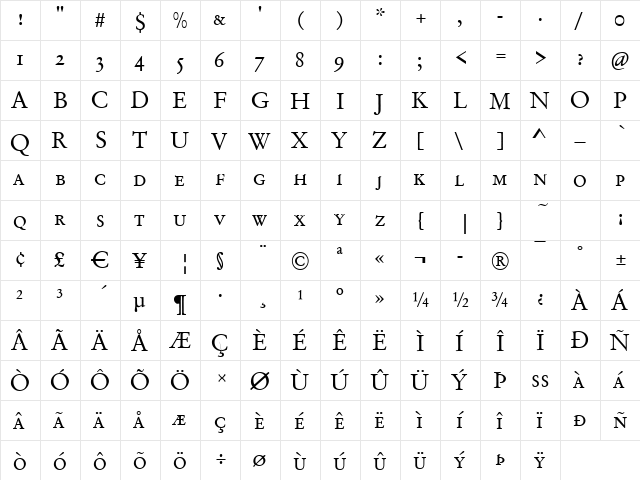
Garfeld-Original-Caps Regular
Design Context for Garfeld-Original-Caps Typeface
Garfeld-Original-Caps offers clean, dependable letterforms without strong stylistic allegiance, making it a practical choice for designers who need flexibility.